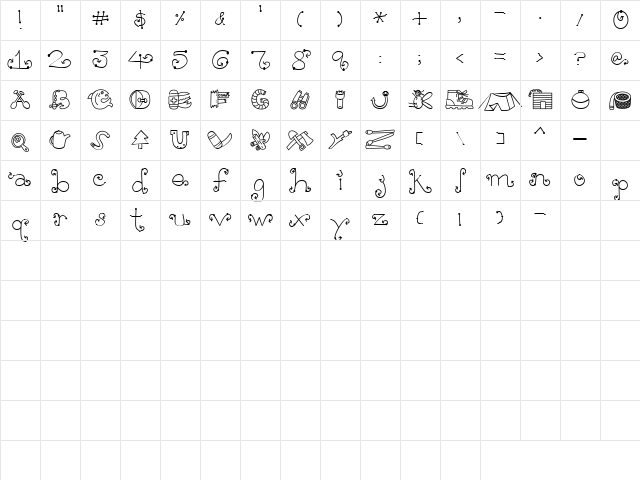
LD Camping Regular Free Font
LD Camping Regular
Design Context for LD Camping
LD Camping is a composed and adaptable typeface that performs quietly and consistently across a wide range of design contexts.